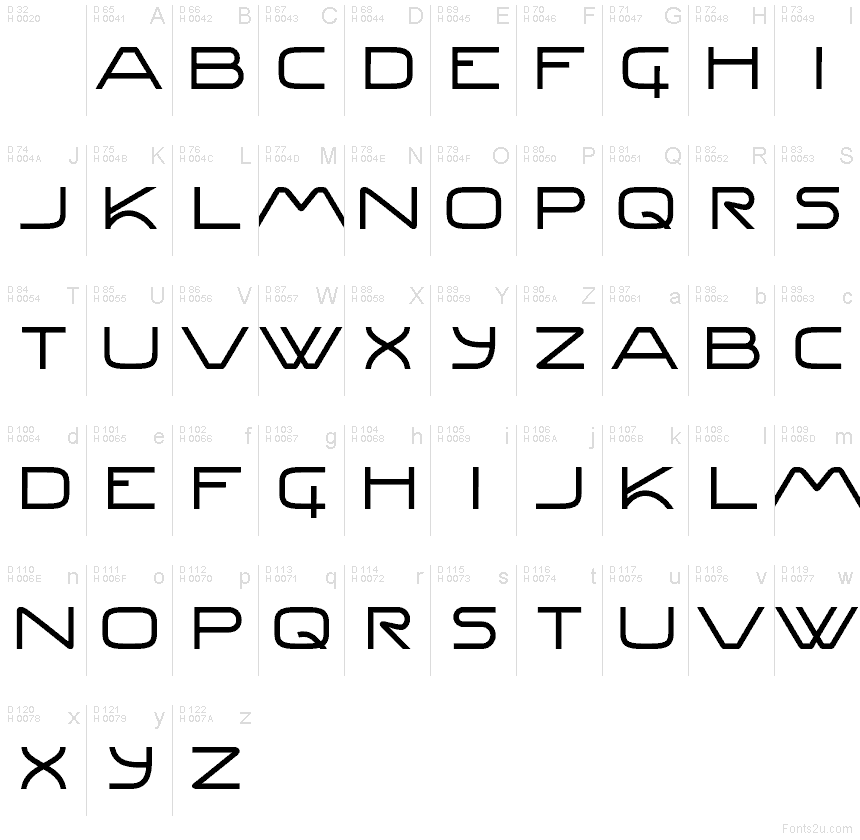
Grom Regular
Grom font by Vladimir Nikolic is a minimalist display font with sleek, modern, and futuristic features. The expanded width font is mostly geometric with consistent structures across the letters. It is a professional yet creative resource that any project could benefit from in terms of looks and attention.
With free access to this visual source, feel free to integrate it into computer games websites or advertisements. Titles for science-fiction books or magazines are also adequate options as well as greeting cards to teenager family members or posters for robotics competitions.